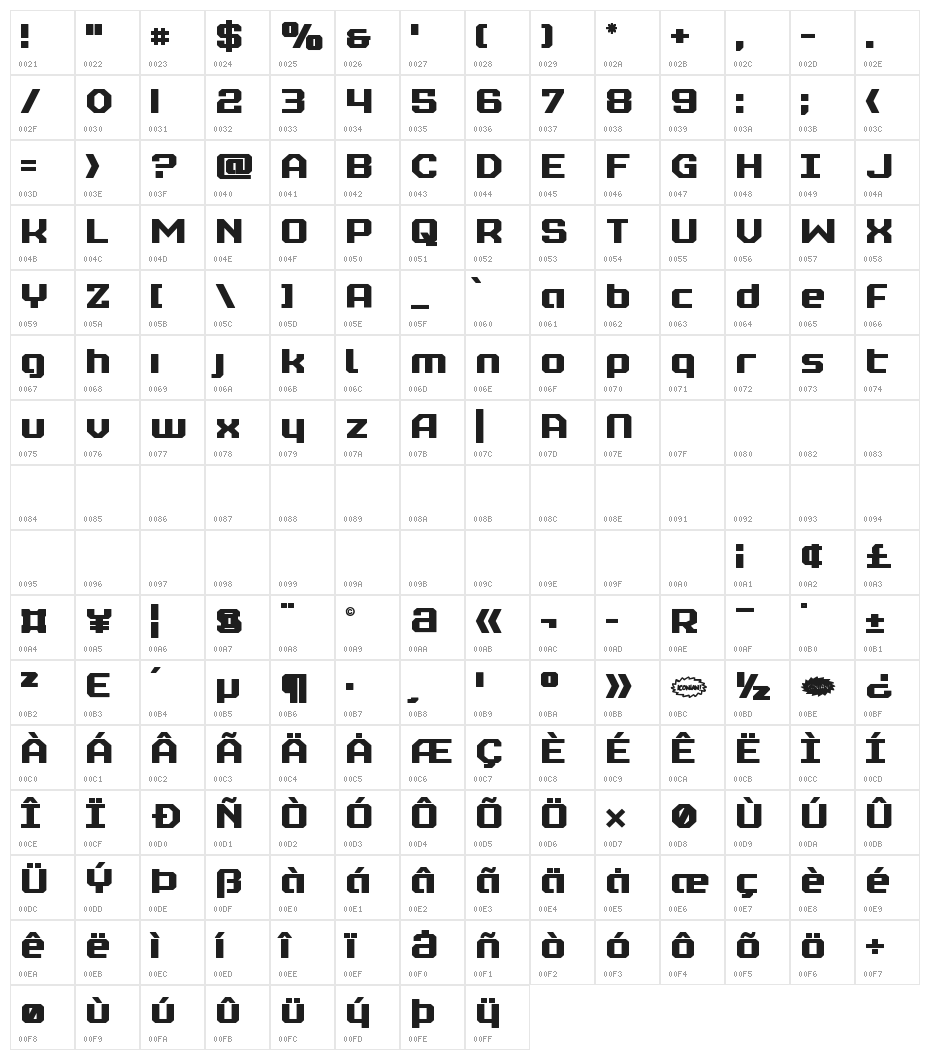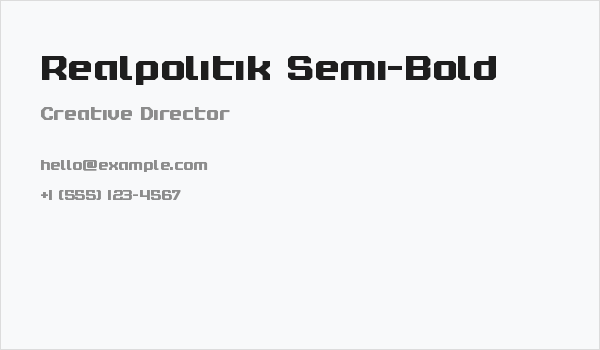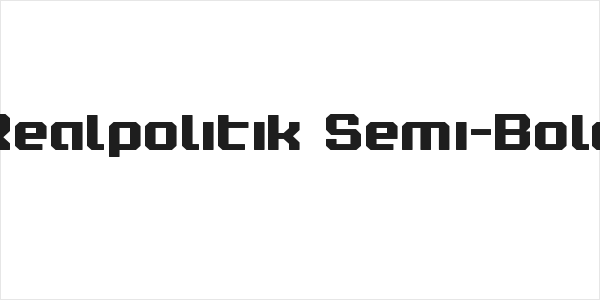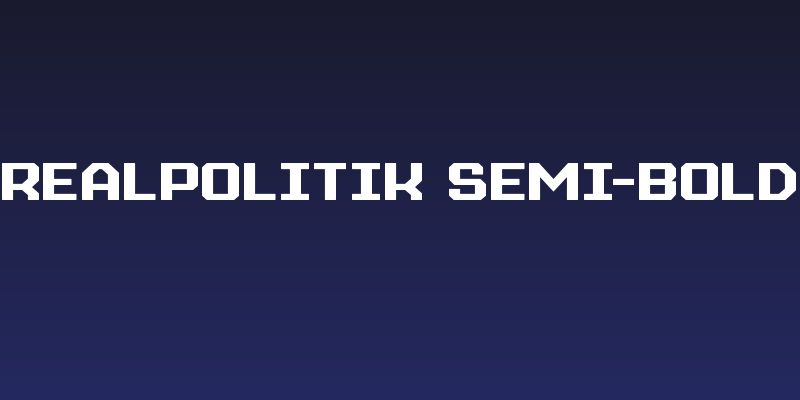
Realpolitik Semi-Bold Font
Realpolitik Semi-Bold Description
This font features a bold, geometric design with strong, angular lines and a modern aesthetic. The characters are uniformly structured, creating a cohesive and impactful look. The uppercase letters are particularly striking, with a blocky appearance that commands attention. The lowercase letters maintain the same geometric style, offering a consistent visual flow. Numbers and special characters are designed to match the boldness and angularity of the alphabet, making them stand out effectively. This font's design is both contemporary and versatile, suitable for a variety of applications where a strong visual presence is desired.